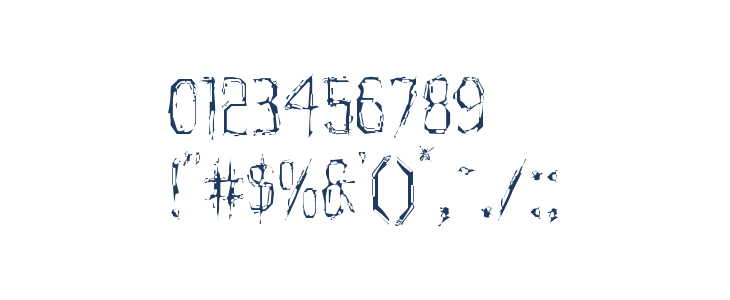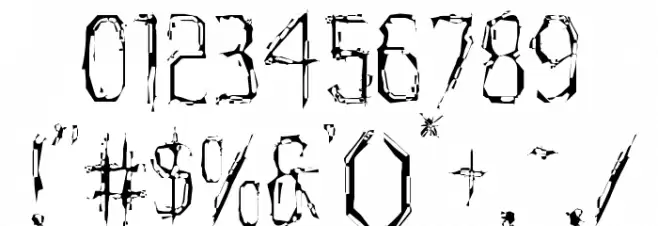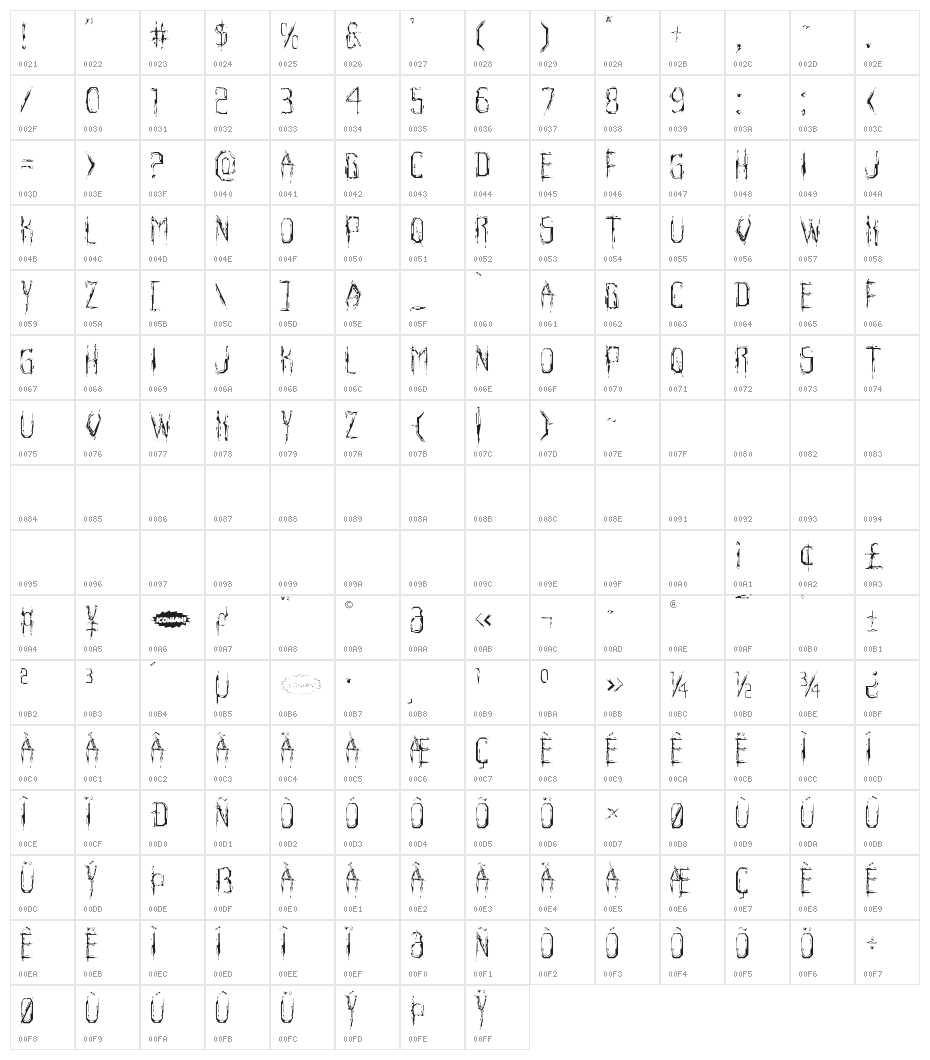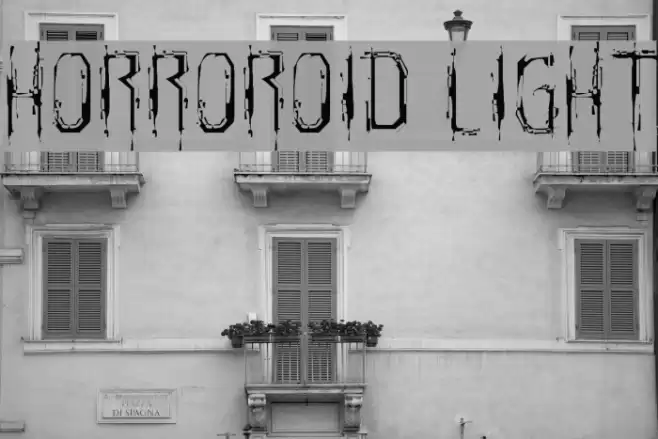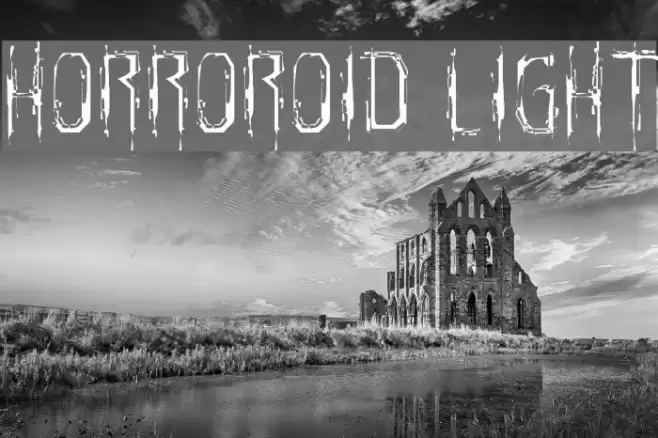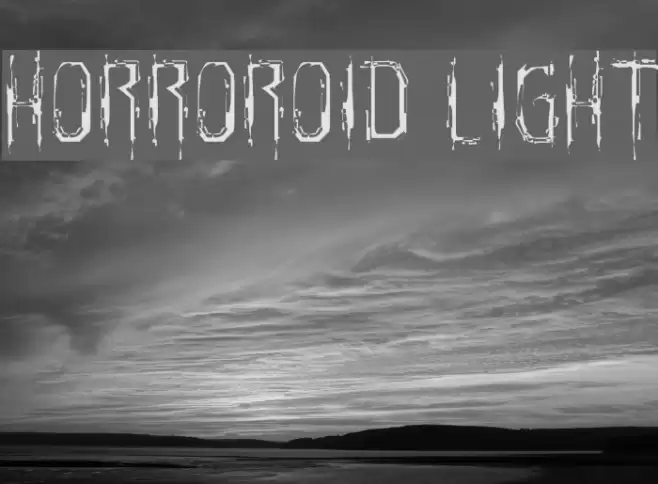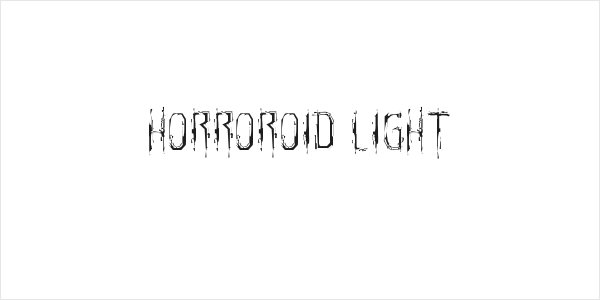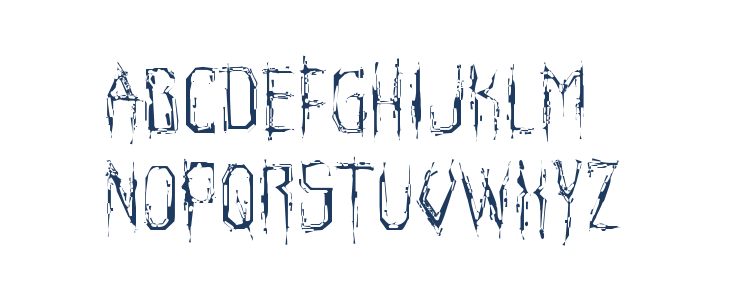
Horroroid Light Font
Horroroid Light Description
This font features a distressed and eerie design, with jagged edges and irregular strokes that create a haunting appearance. The characters are tall and narrow, with a sharp, angular style that evokes a sense of unease and mystery. The font's unique texture gives it a worn, decayed look, making it ideal for horror-themed projects. Its distinctive appearance is both eye-catching and unsettling, perfect for creating an atmosphere of suspense and fear. The uppercase and lowercase letters maintain a consistent style, while the numbers and special characters complement the overall aesthetic.
| Proposed Projects | Ideal for horror movie posters, Halloween event flyers, spooky book covers, and themed merchandise. |